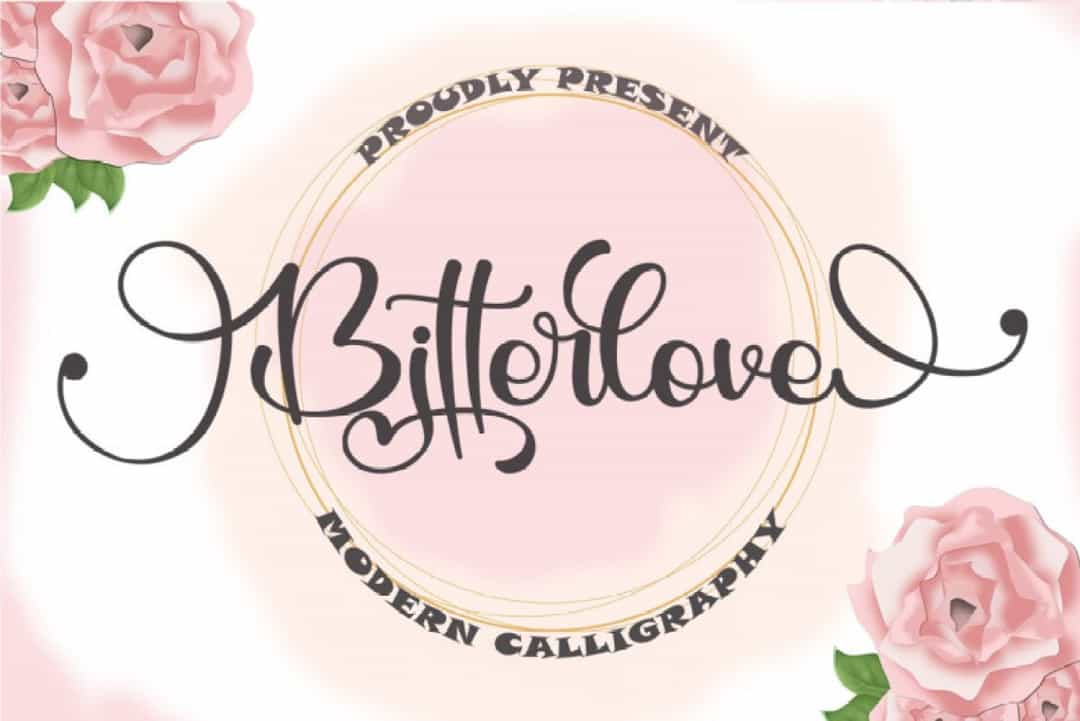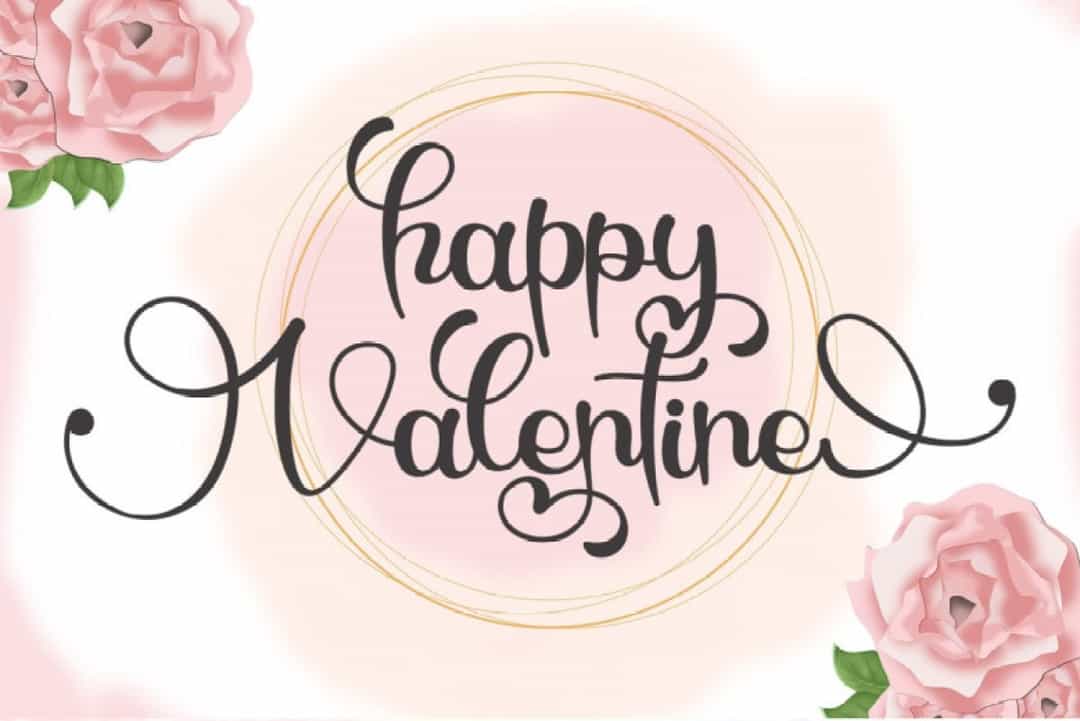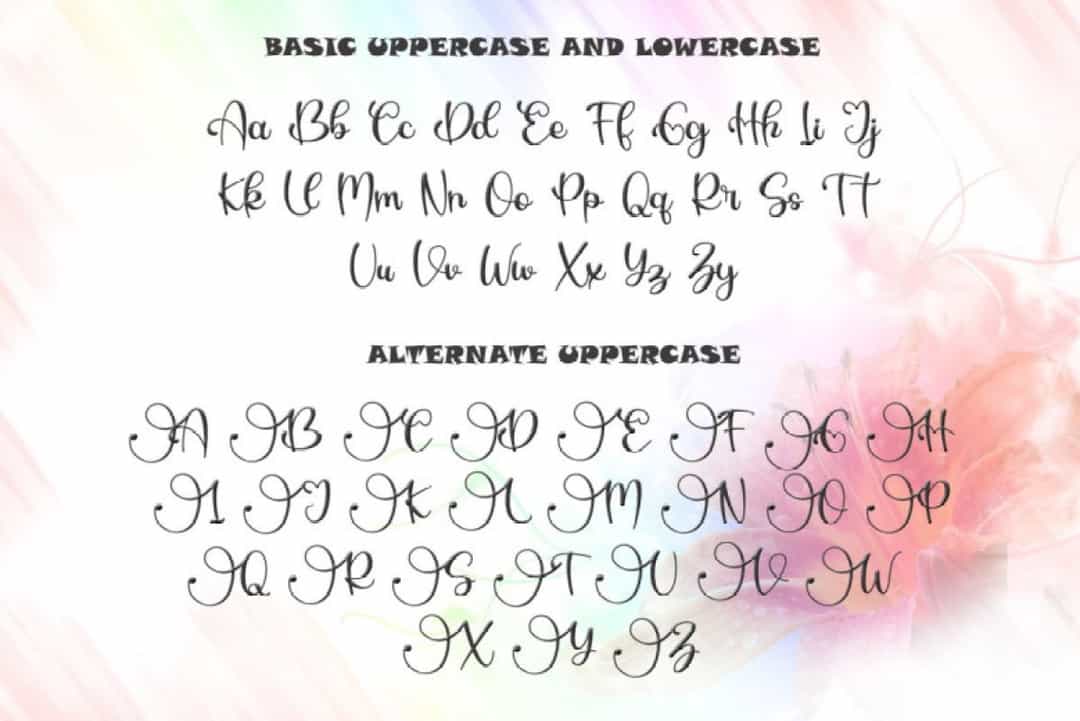
The Bitterlove Font from Letterafa Studio is a brand new font that has a calligraphy style that gives a new and refreshing yet bitter-sweet touch to projects and its characters. Bitterlove Font is suitable for uses in greeting cards, logos, packaging designs, branding, DIY crafts and projects, wedding invitations, book titles and the packaging design and many other purposes.